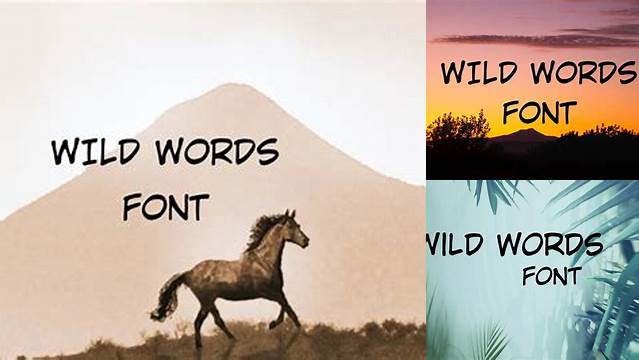
Wild Words Font: Free Downloads & Creative Uses
Hey guys! Are you on the hunt for that perfect font to give your designs some serious oomph? Look no further! The "wild words font free download" is here to rescue your projects from the mundane and inject them with a healthy dose of personality. Whether you're crafting eye-catching logos, designing killer social media graphics, or just want to add some flair to your documents, this font could be your new best friend. Let's dive into everything you need to know about finding, downloading, and using wild words fonts to unleash your creative genius.
1. Understanding the Appeal of Wild Fonts
So, what's the big deal with wild fonts anyway? Well, they're all about breaking the mold. Unlike your standard, run-of-the-mill fonts, wild fonts often feature unique shapes, unconventional letterforms, and a whole lot of character. They can evoke a sense of playfulness, rebellion, or even sophistication, depending on the specific design. When you're looking for a "wild words font free download," you're essentially seeking a font that stands out from the crowd and grabs attention. Think about fonts with exaggerated serifs, hand-drawn textures, or quirky ligatures. These are the elements that make a font truly wild and memorable. Using wild fonts can instantly elevate your designs, making them more engaging and visually appealing. They're perfect for projects where you want to make a statement and leave a lasting impression.
Always, always check the license agreement before using a wild words font free download. Ignoring the license can lead to legal trouble down the road, and nobody wants that!
5. Using Wild Fonts Effectively in Design
Just because you have a wild font doesn't mean your design is automatically going to be amazing. You need to use these fonts strategically to achieve the desired effect. Here are a few tips:
- Use sparingly: Wild fonts are best used for headlines, logos, and other short bursts of text. Avoid using them for large blocks of body text, as they can be difficult to read.
30. Staying Inspired and Creative with Wild Fonts
Finally, the most important thing is to stay inspired and creative with your wild fonts. Experiment with different fonts, styles, and techniques to find what works best for you. Don't be afraid to break the rules and try something new. The world of typography is vast and exciting, so have fun exploring it!